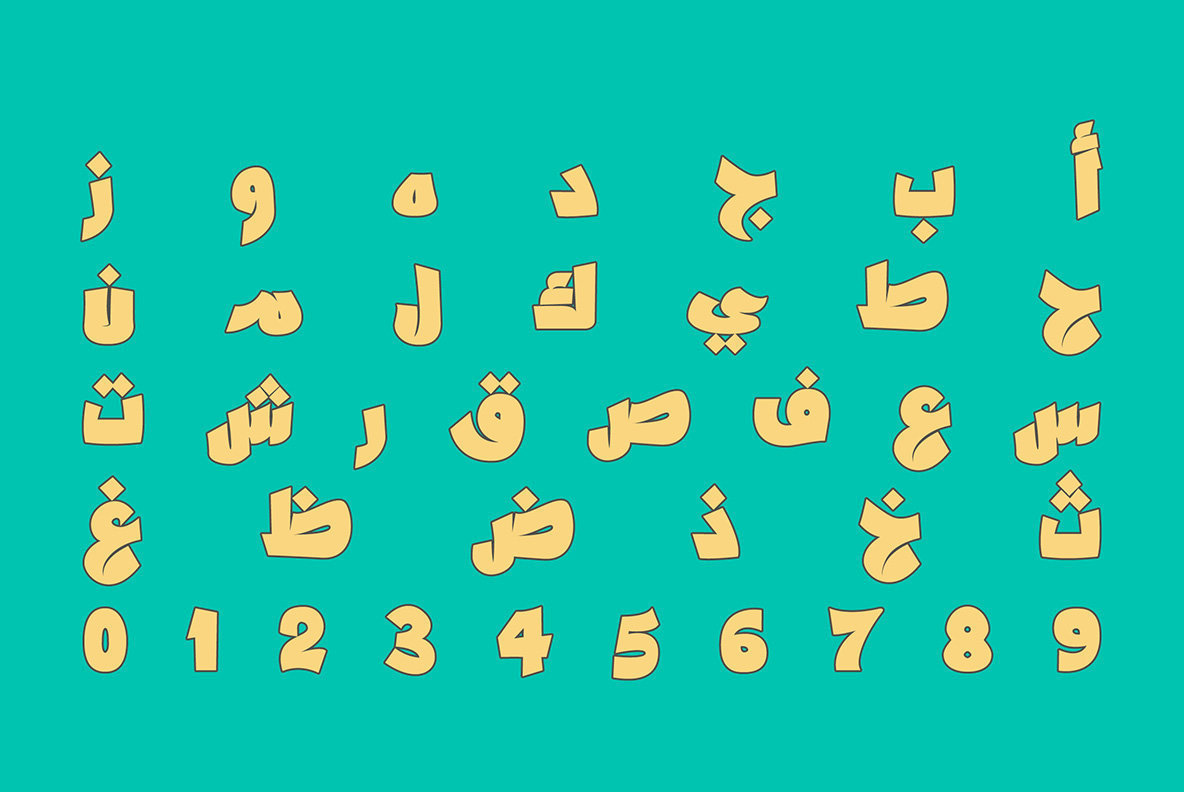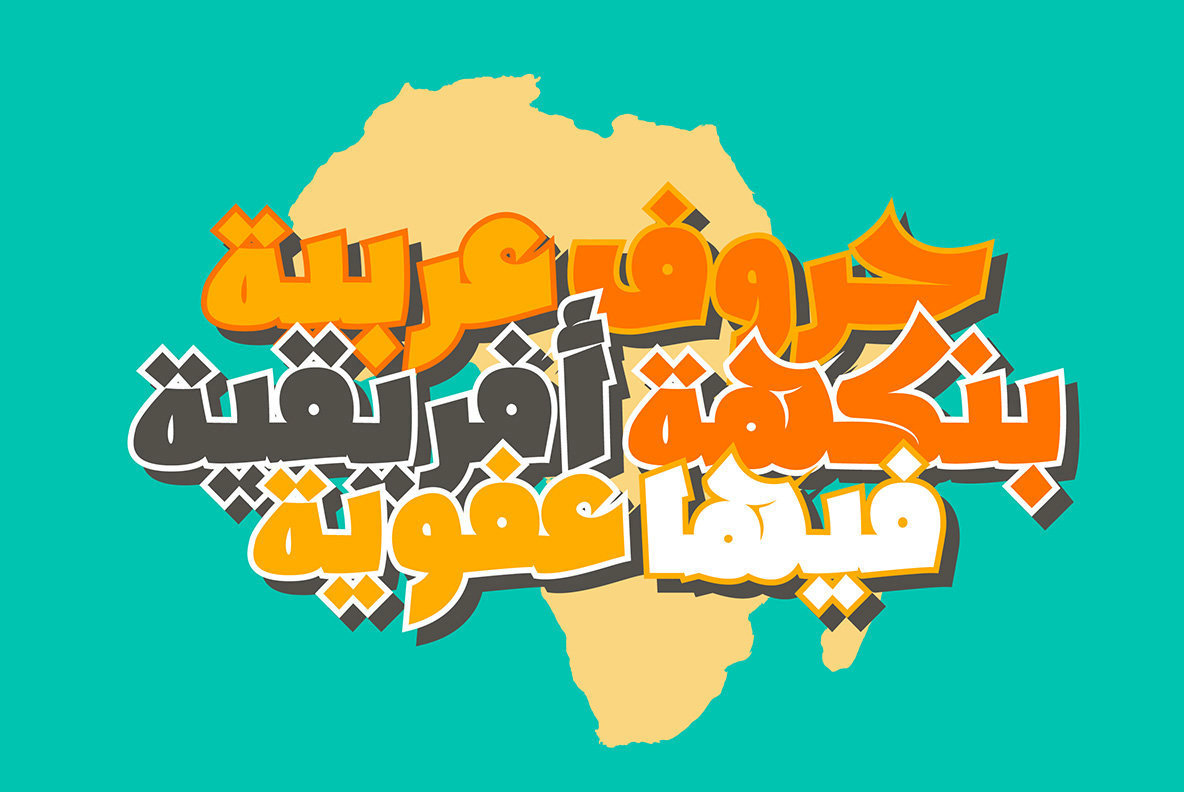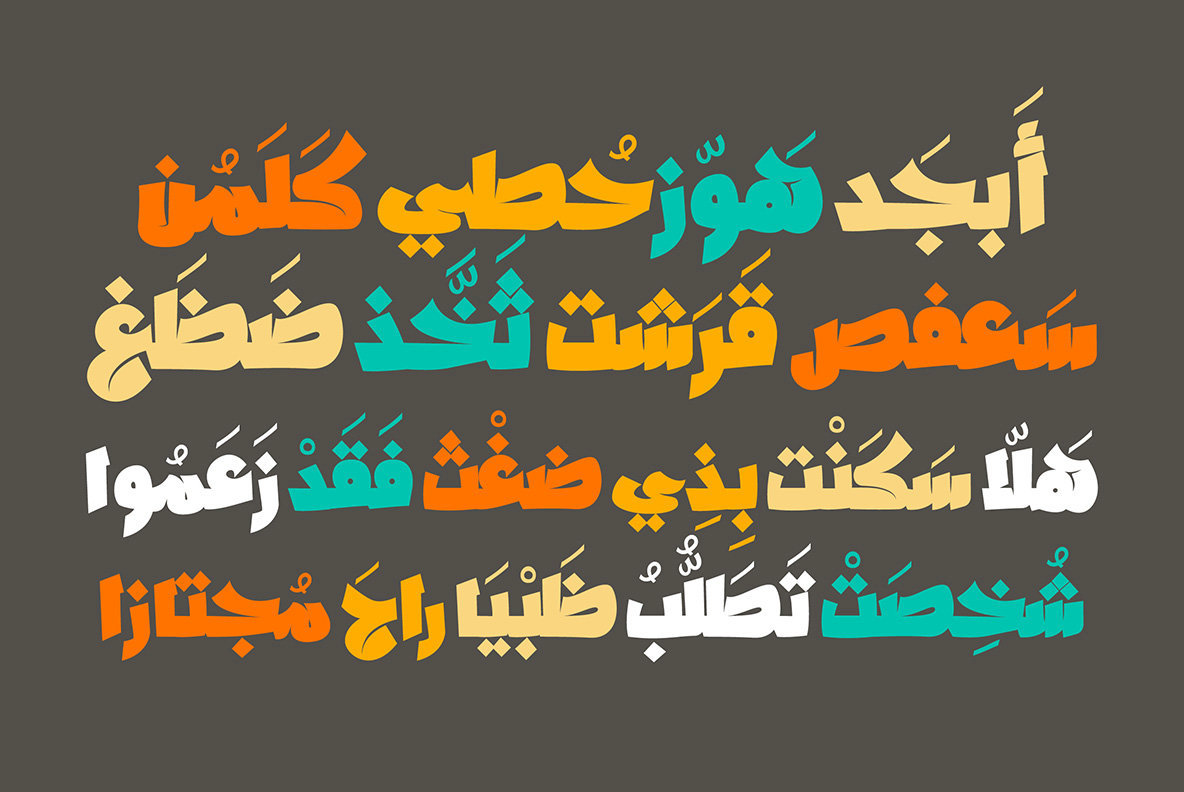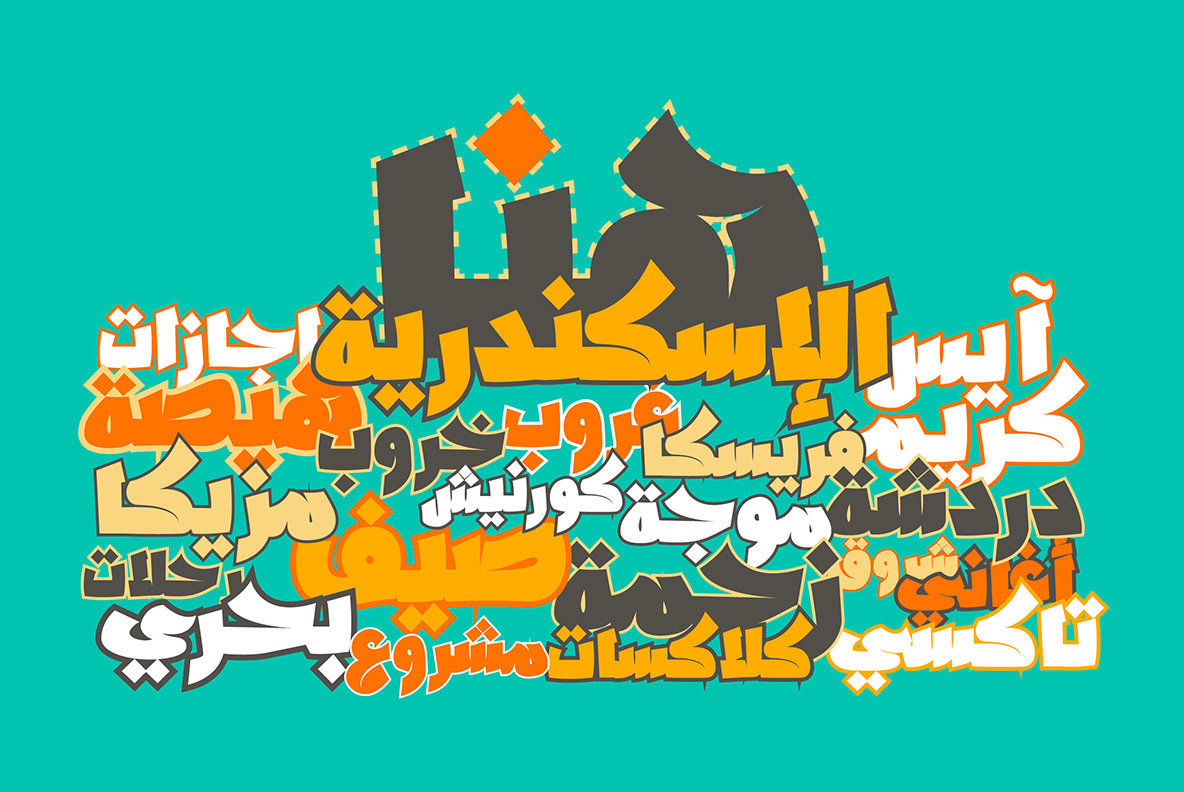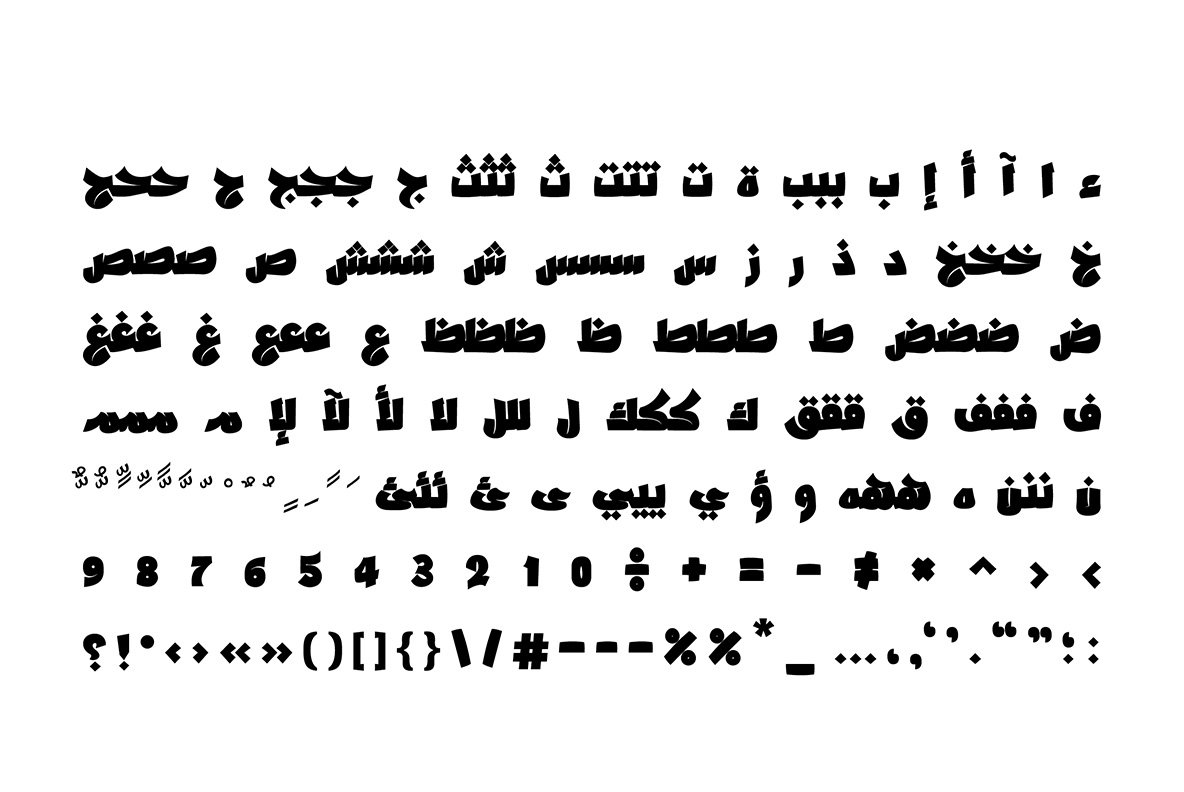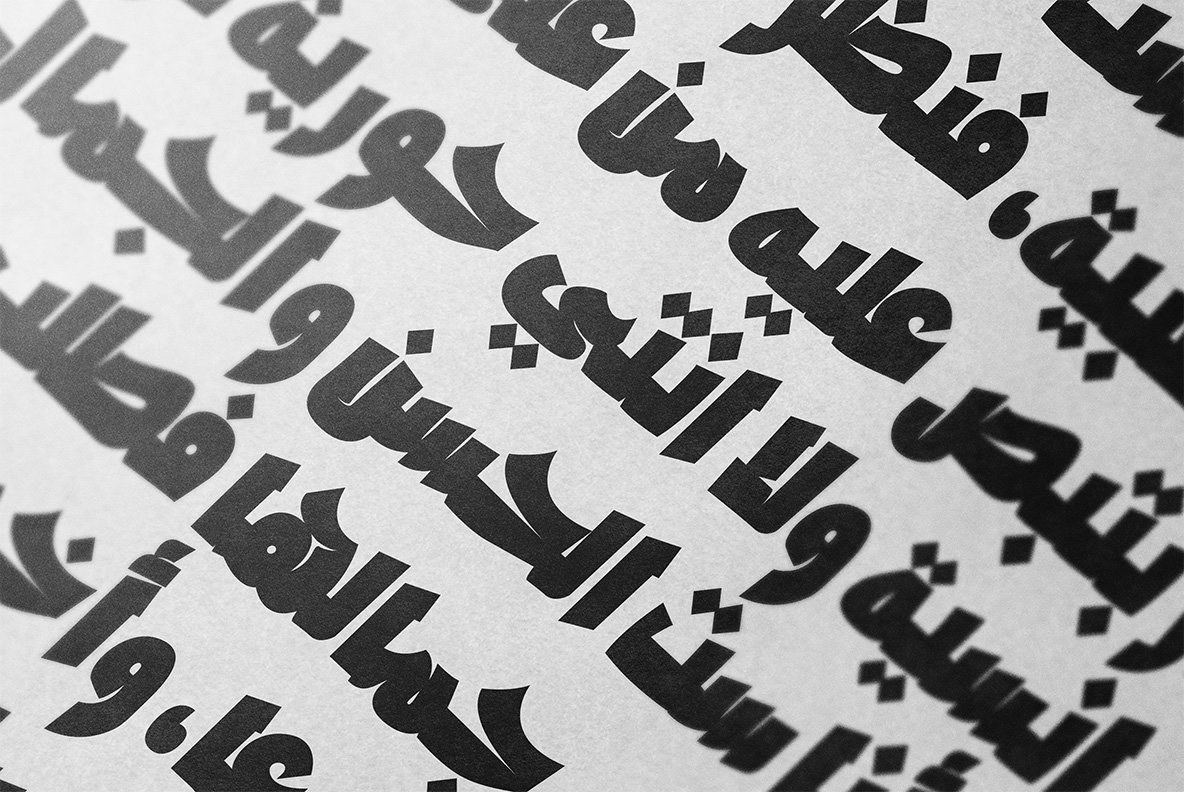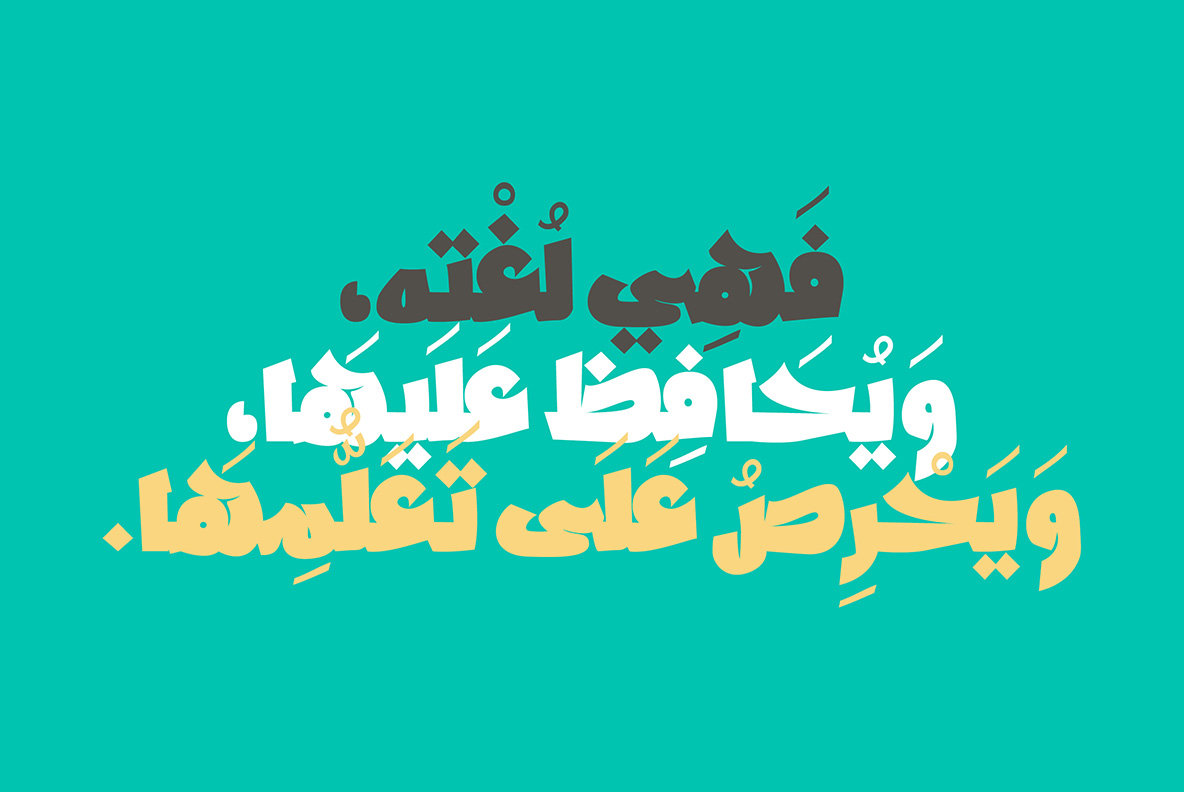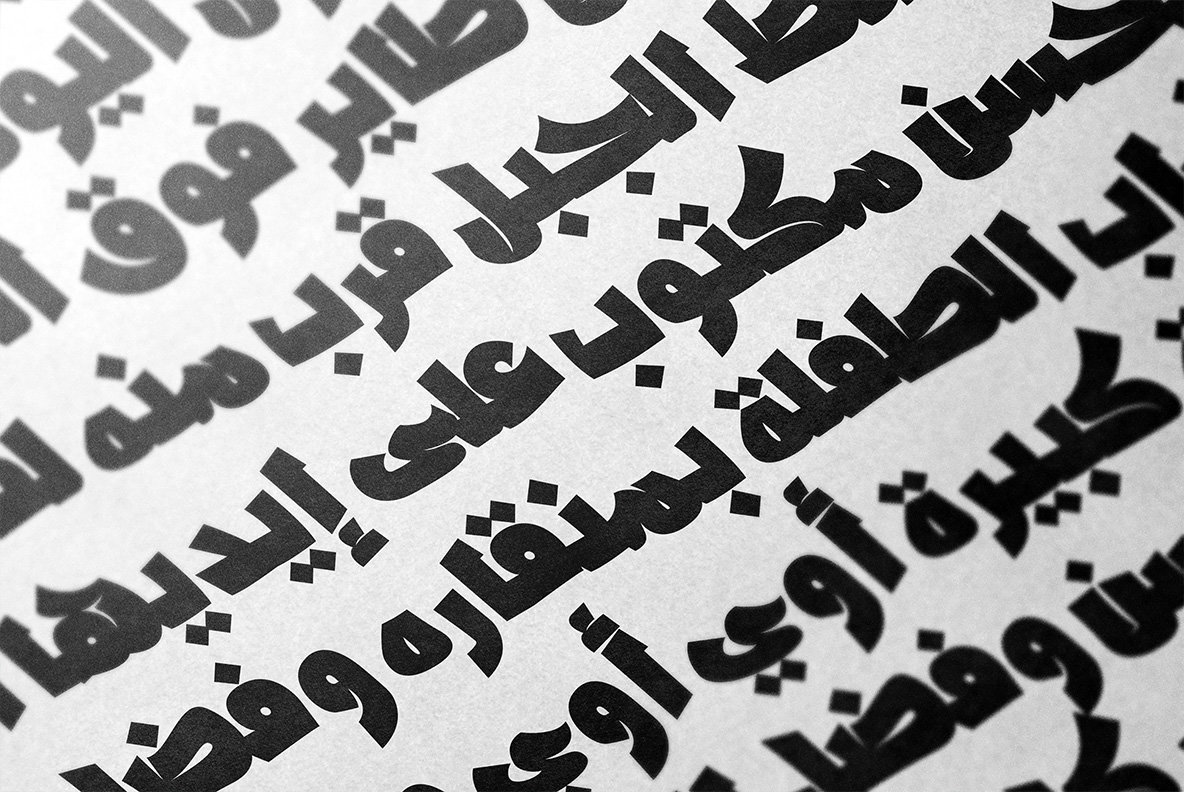
Dawshah 1
In Arabic, The word ‘Dawshah’ has few meanings between making noise and unseeing. Dawshah is an Arabic display font that is mainly designed for casual titling. It is heavy and sponteniously styled to have the ability to communicate texts loudly. Dawshah suits logotypes, T-shirt typography, events, book covers and other creative projects.